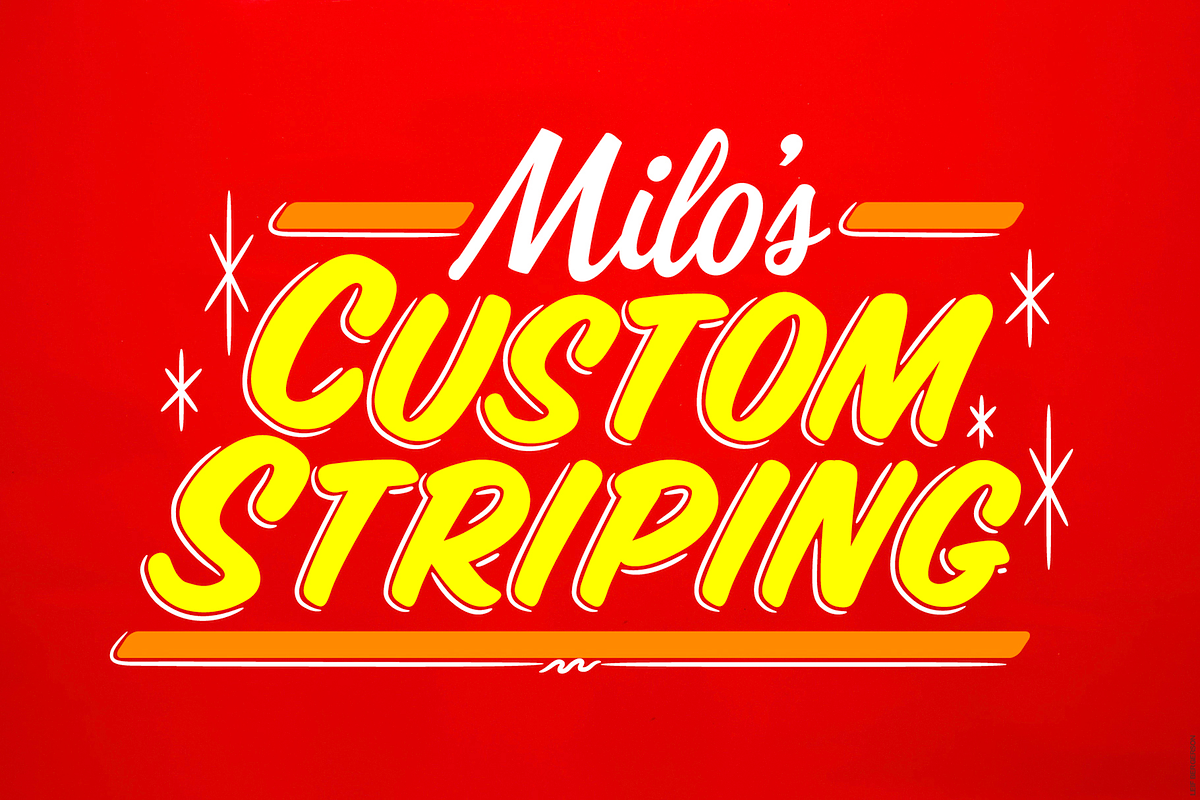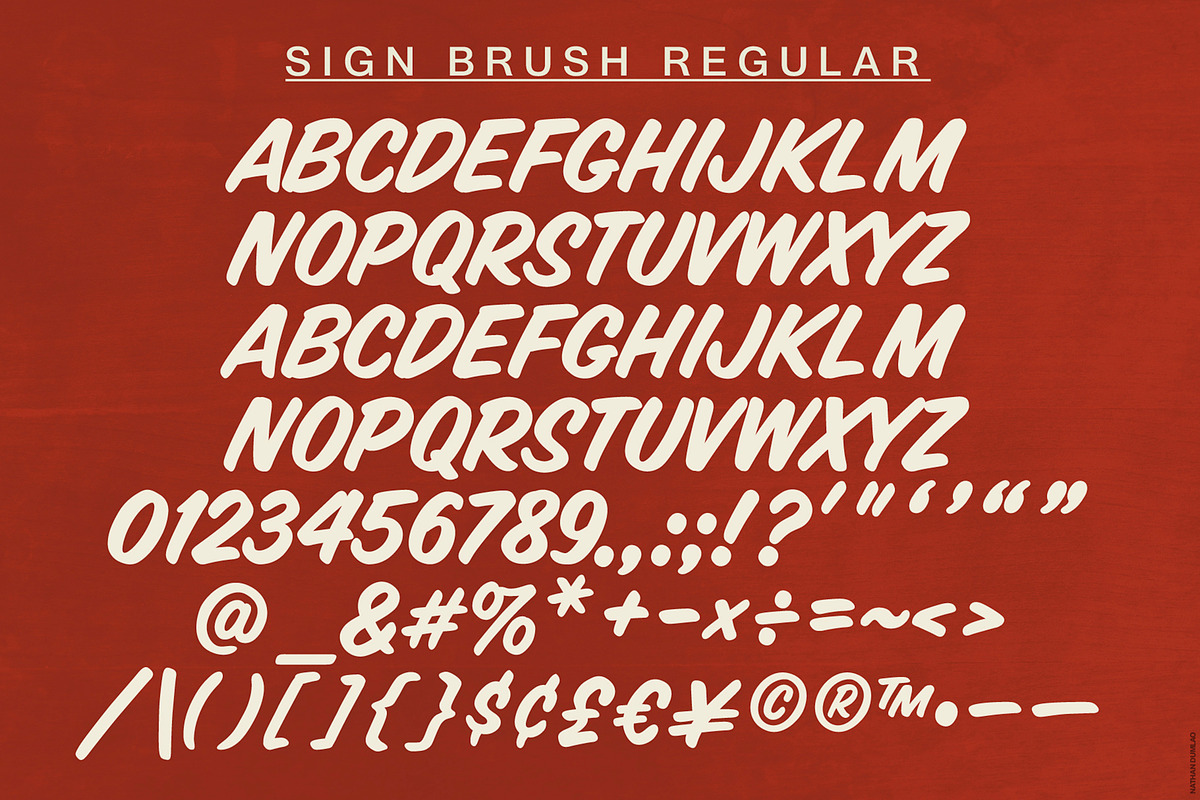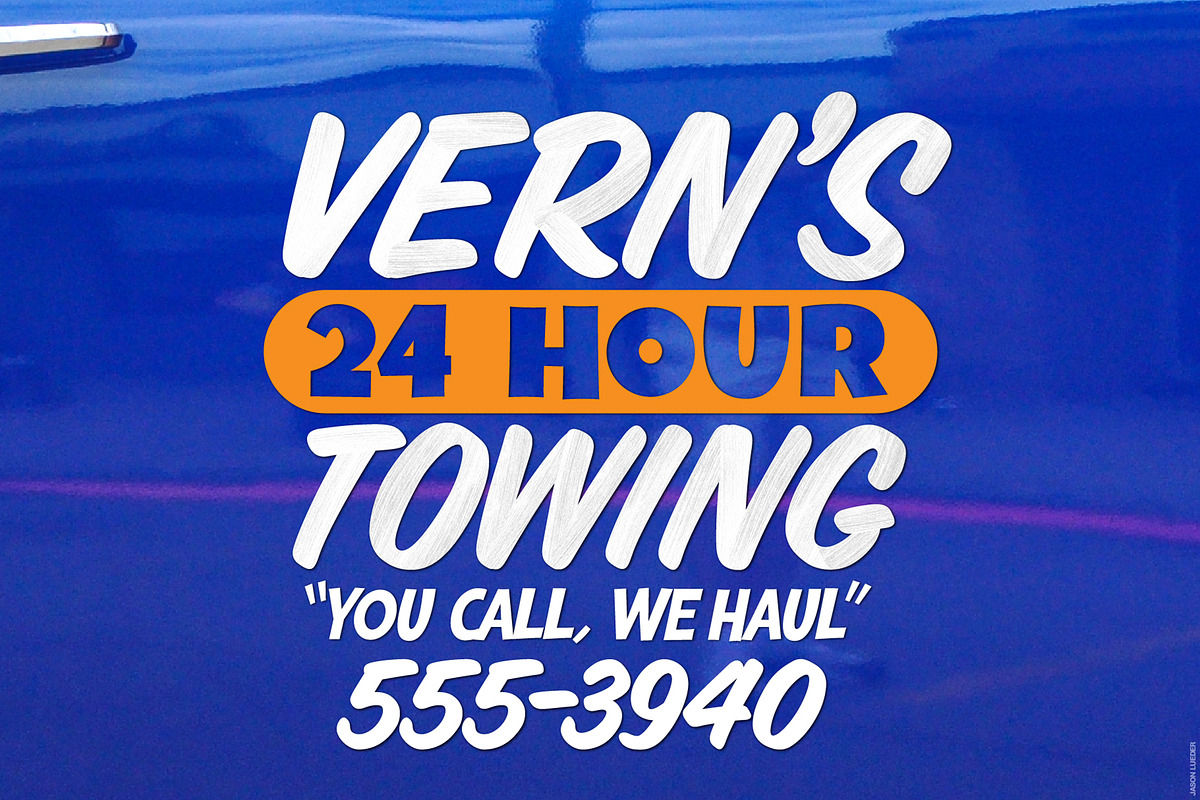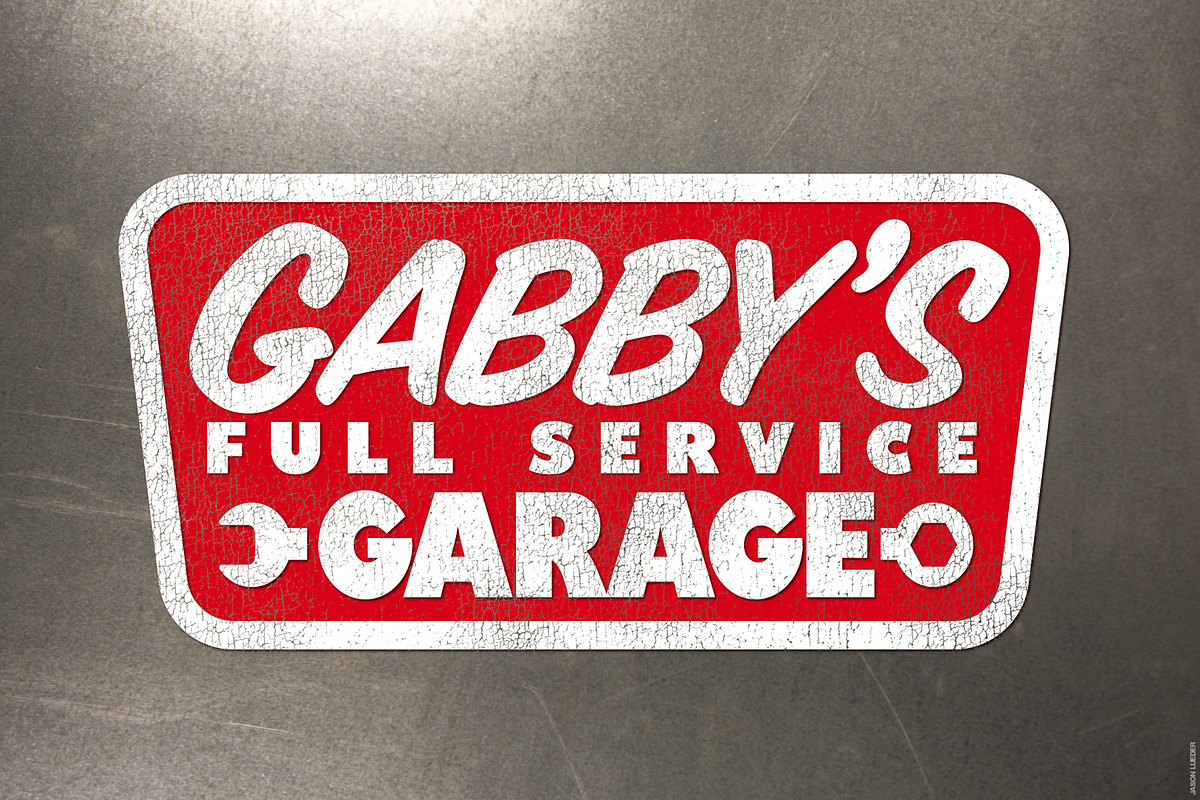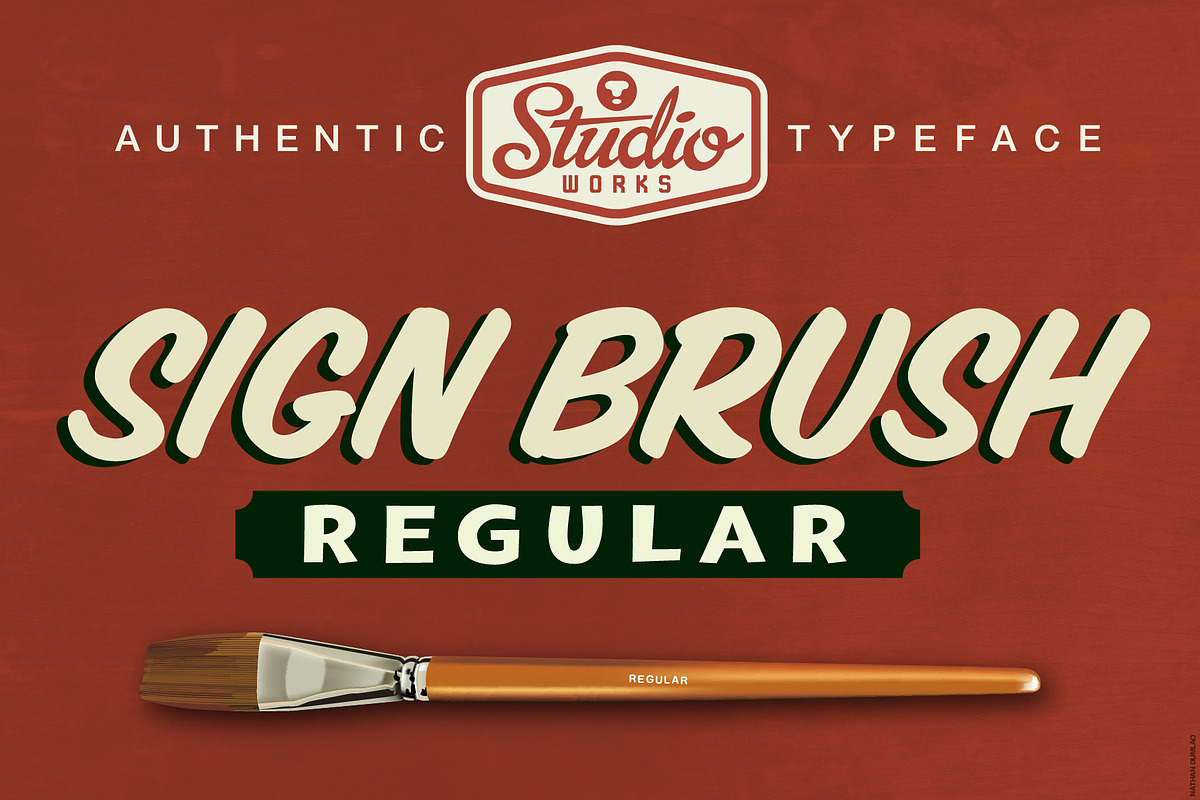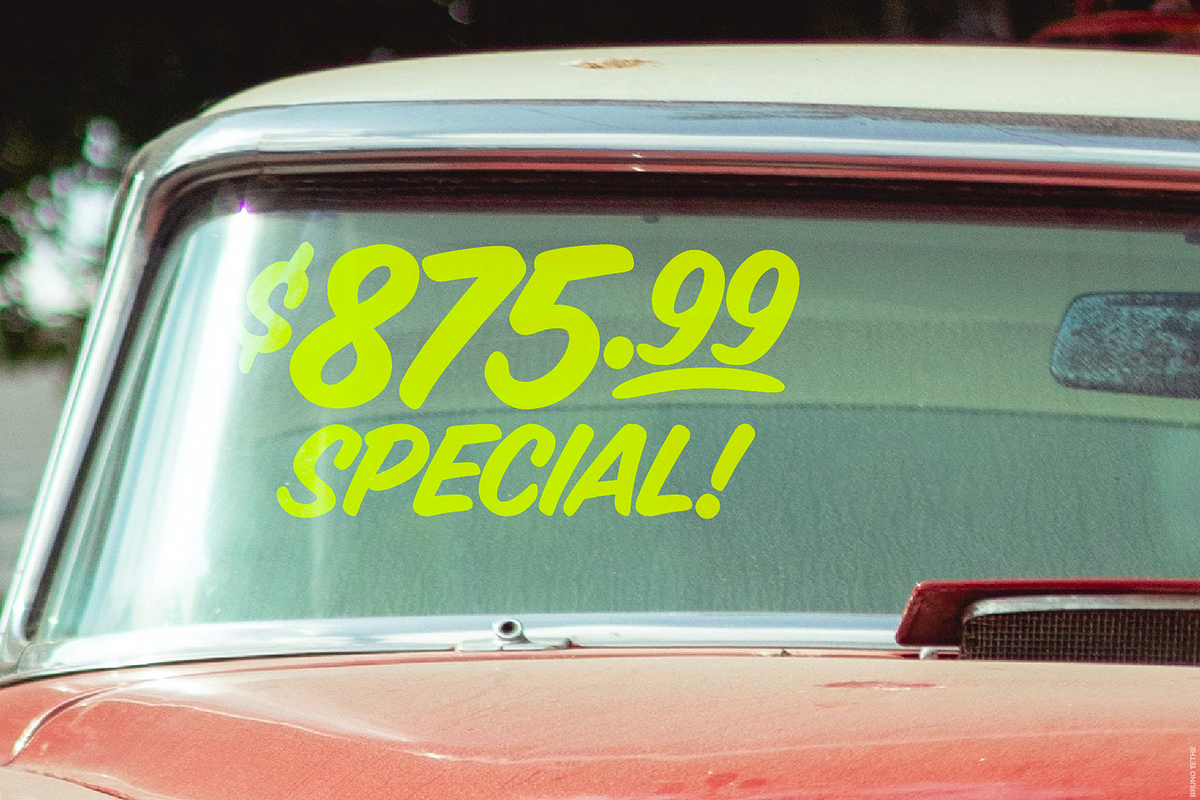
Sign Brush Regular | Display Type
StudioWorks proudly presents •• S I G N • B R U S H • R E G U L A R •• — a standard one-stroke, casual display typeface!
Sign Brush Regular mimics the hand-lettered brush type of classically-trained signwriters. The acquired skill of wielding paint-loaded lettering brushes yielded the very distinct, low contrast, lobed strokes with a touch of right-handed stress. Sign Brush Regular celebrates this age-old method of ‘one-stroke’ lettering to deliver vintage charm to logos, headlines, posters and signage of all kinds.
- Single Case (capital) A-Z characters
- Numbers (0-9)
- Standard punctuation and glyphs
Get the all-purpose, casual brush lettering look with Sign Brush Regular and create vintage, hand-painted designs with absolute ease!